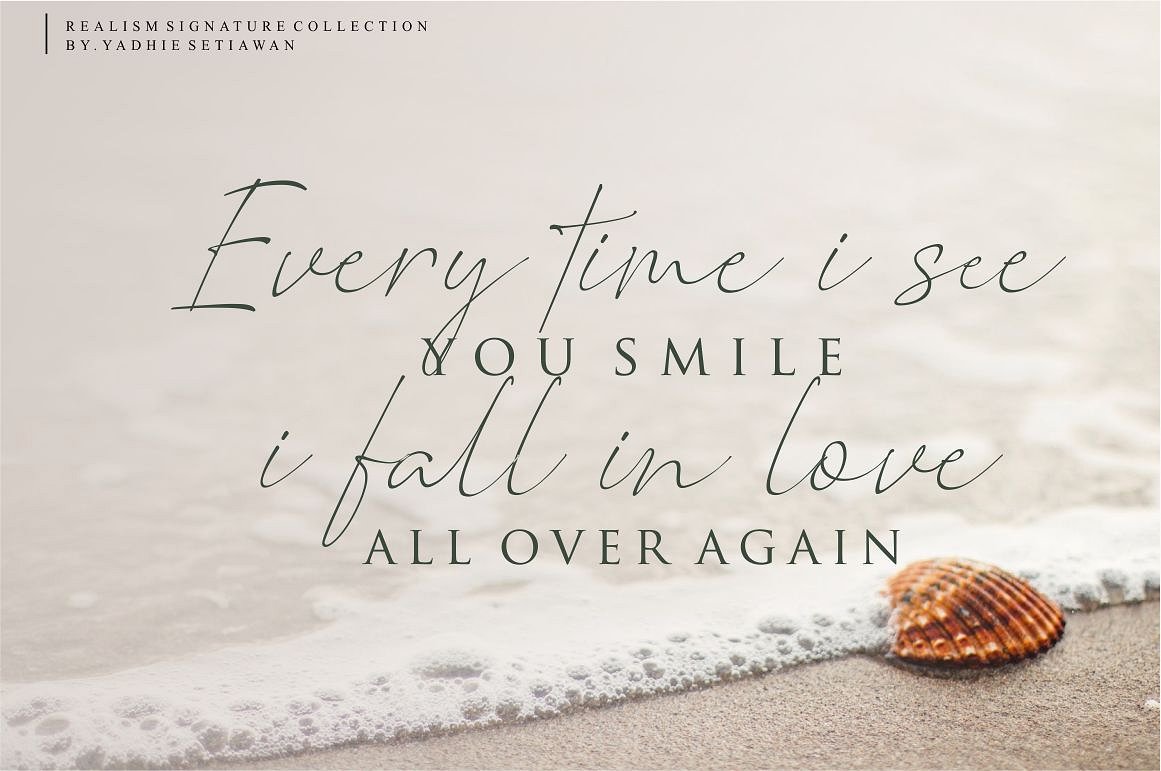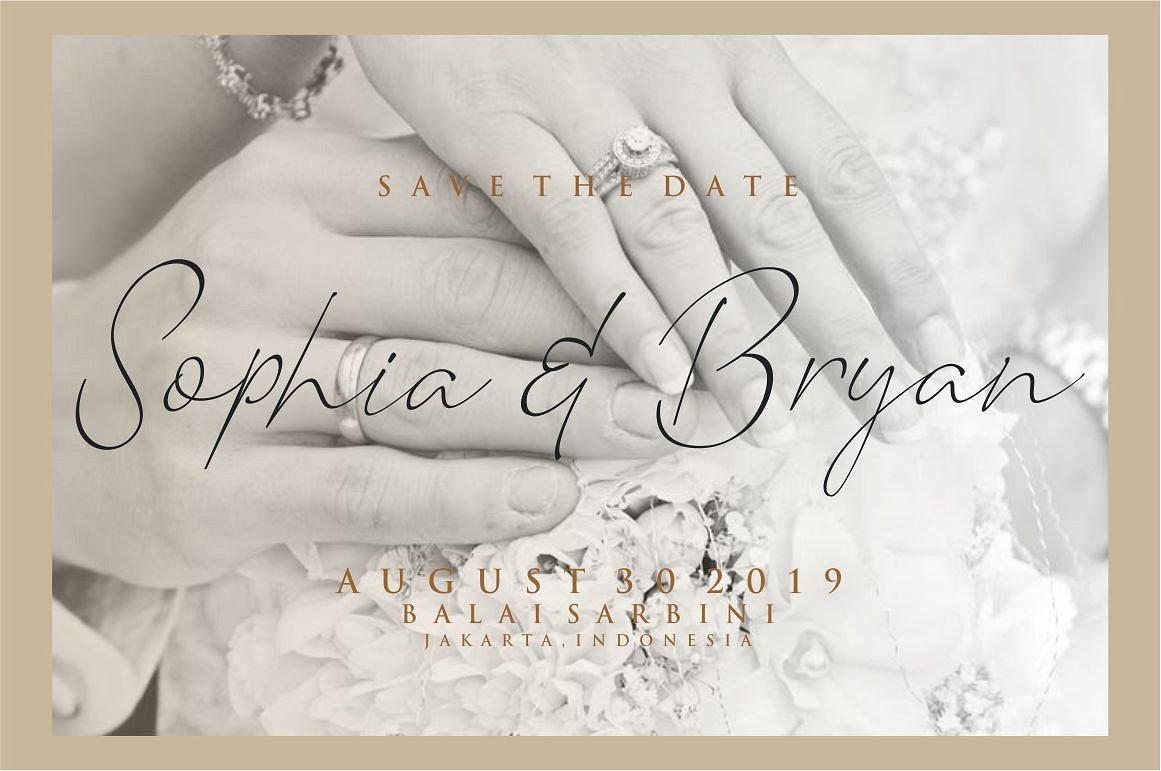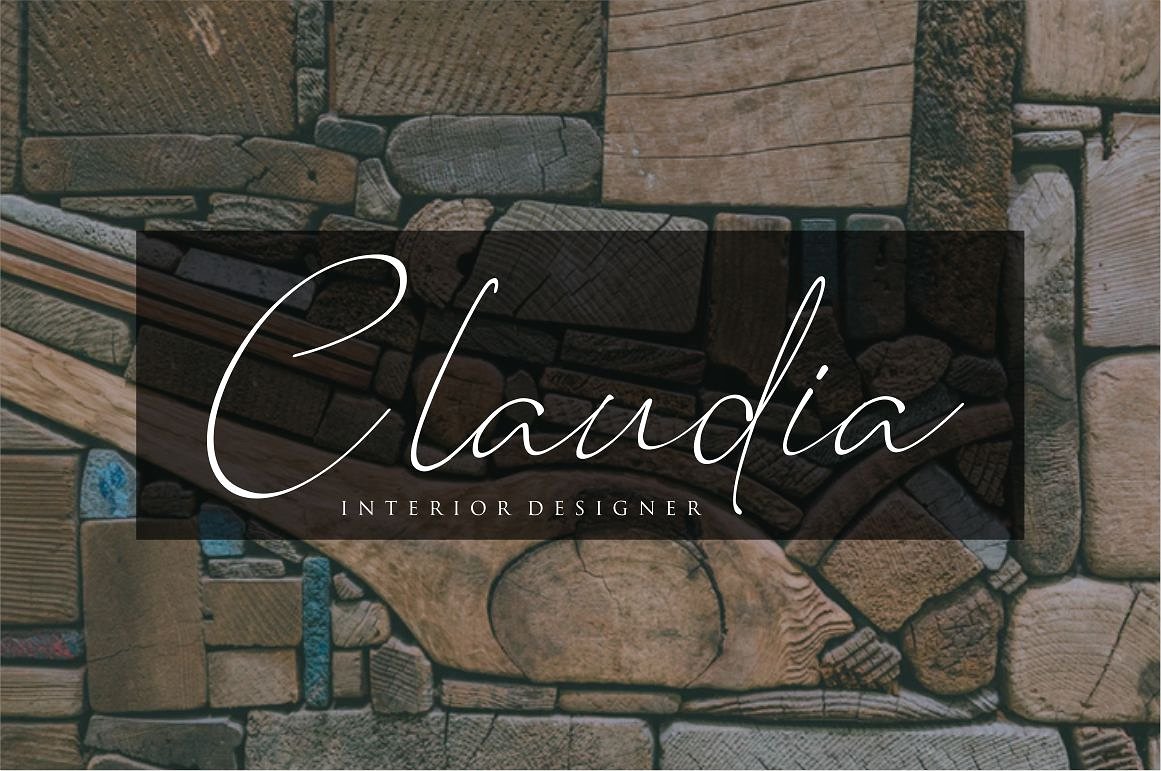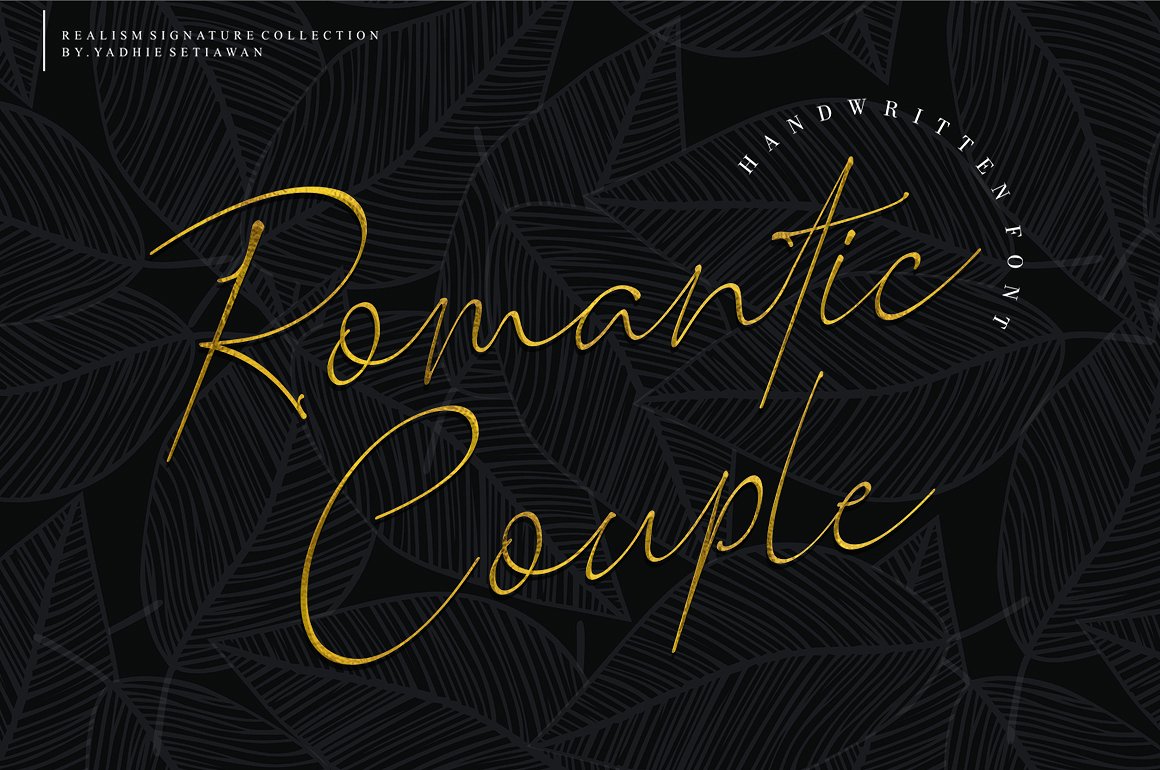
Romantic Couple Handwritten Font
Introducing RomanticCouple Signature Font. It is designed by typeline studio, this is a premium font, are sold on creativemarket, but it was great, it is free today for download. Romantic Couple Script is the latest and most amazing Realism Signature font, designed to create beautiful typhography or lettering, Looks beautiful when used for personal logo and letterhead.branding,magazine,name card ,wedding invitation and anything do you want inspired ligature santorini font by peach creme, and this font inspired romantic feel the name of font Romantic Couple